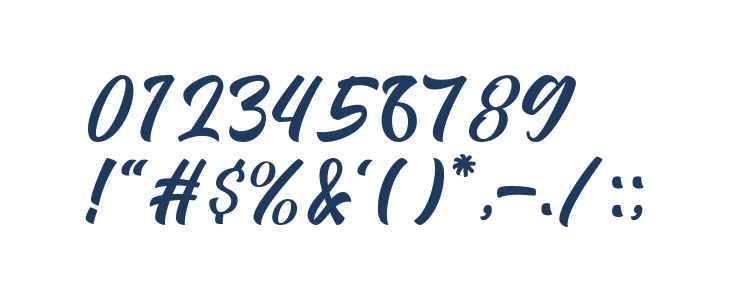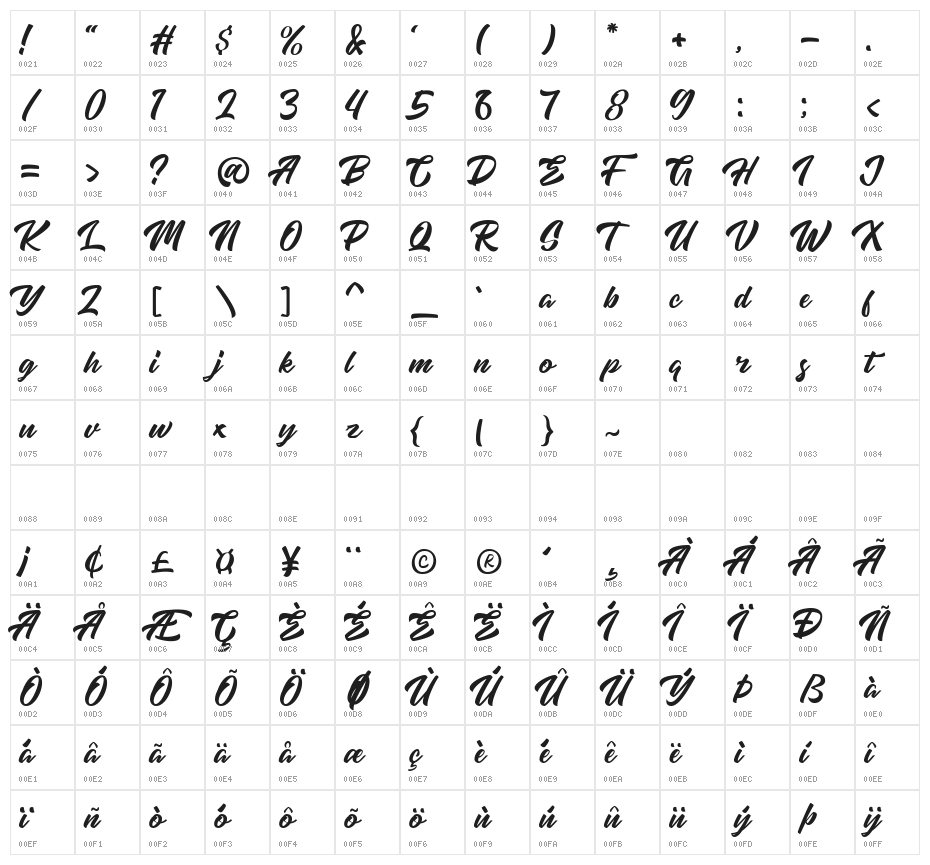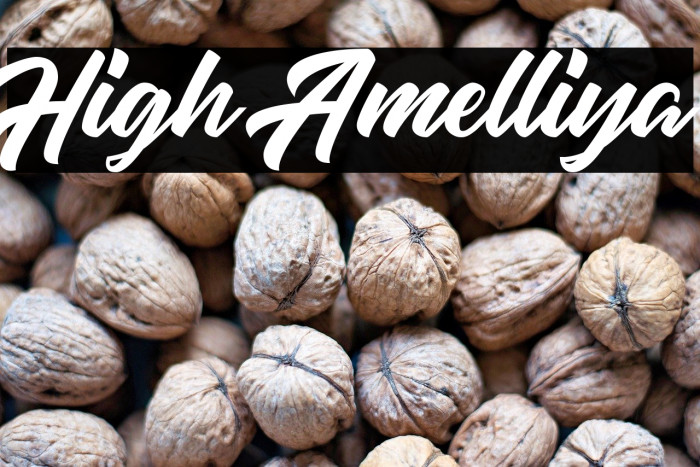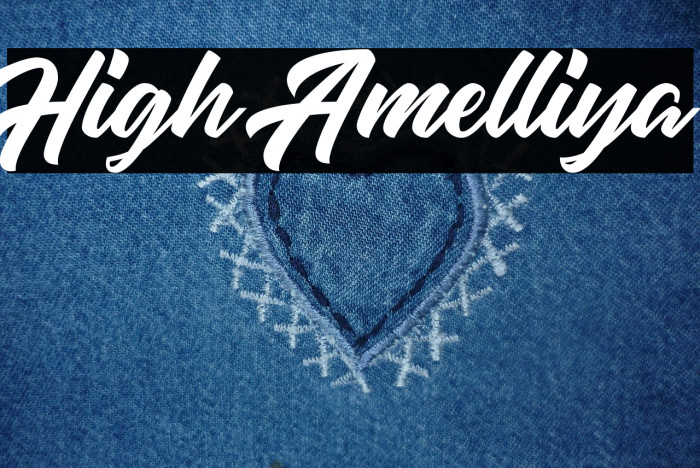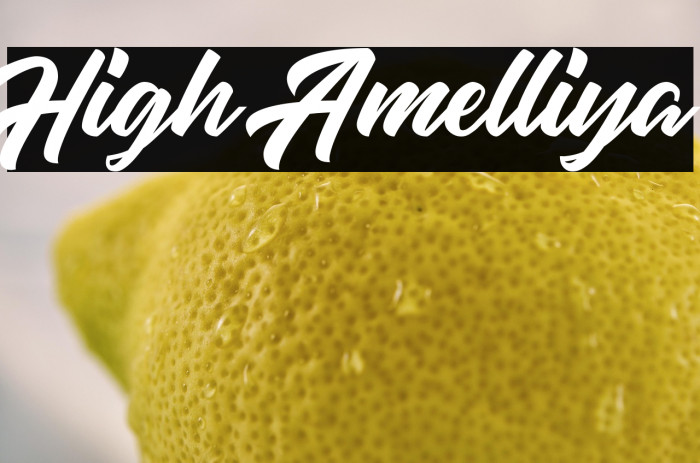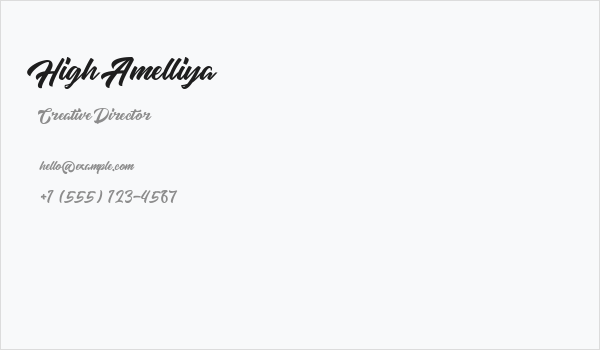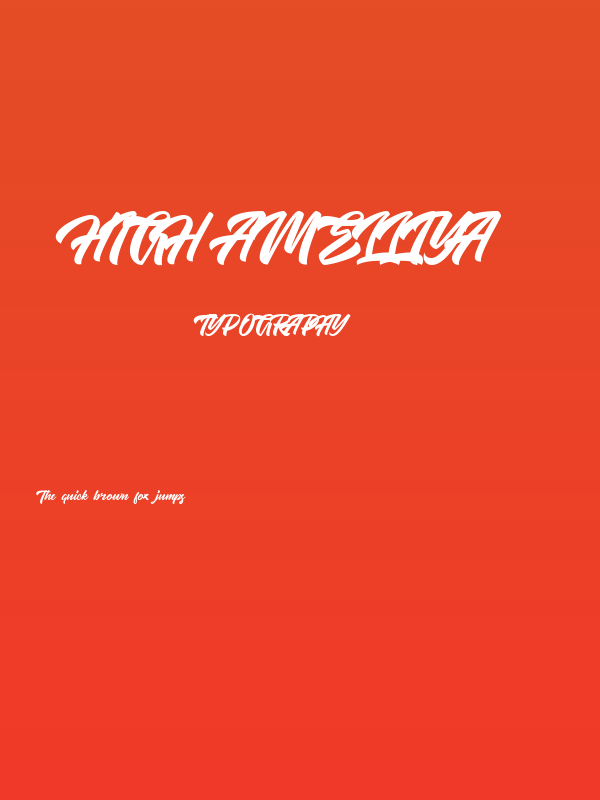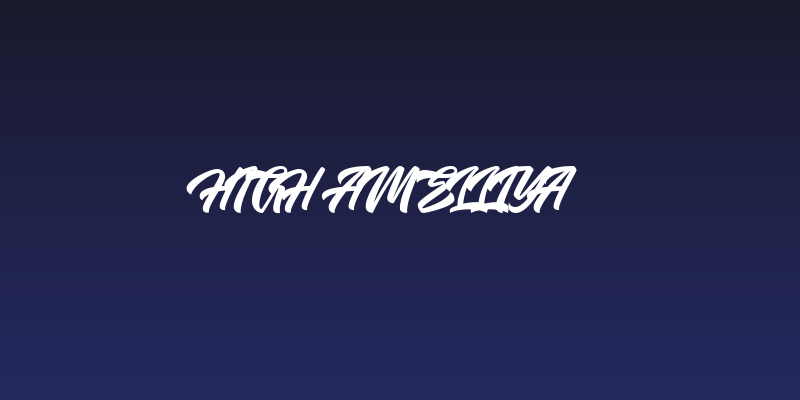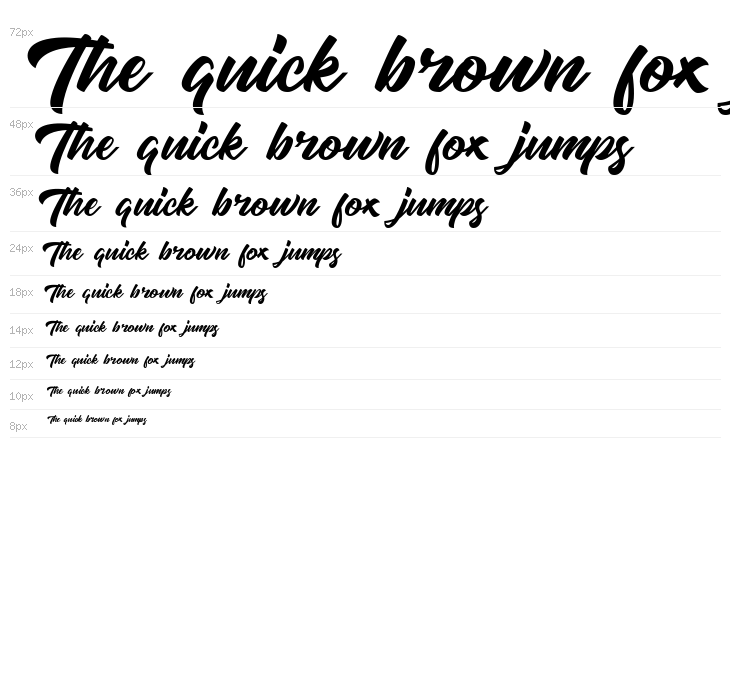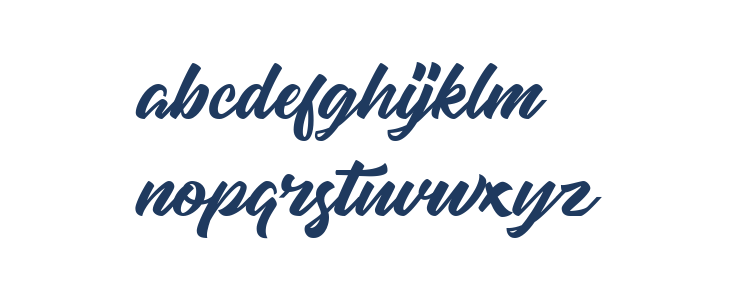
High Amelliya Font
High Amelliya Description
This font features a bold, flowing script style that exudes elegance and sophistication. The characters are interconnected, creating a seamless and fluid appearance that is both dynamic and graceful. The uppercase letters are particularly striking, with exaggerated loops and curves that add a sense of movement and flair. The lowercase letters maintain the same fluidity, with smooth transitions and a consistent stroke width that enhances readability. The numerals and special characters are designed to match the overall aesthetic, ensuring a cohesive look across all text elements. This font is perfect for projects that require a touch of elegance and personality, such as invitations, branding, and decorative headlines.
| Overall Style | Elegant, Decorative |
| Proposed Projects | Ideal for wedding invitations, luxury branding, decorative headlines, and personalized stationery. |